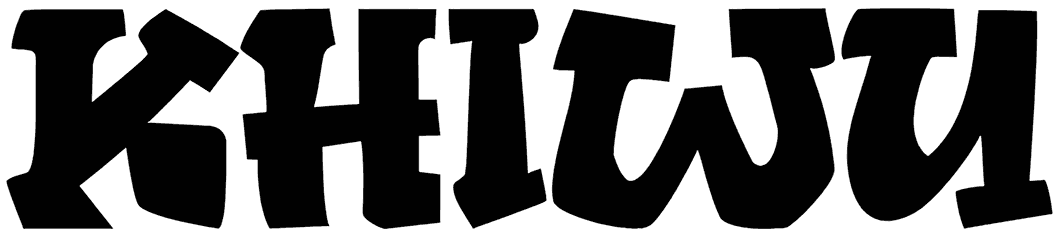
Bomber Wall Font
Bomber Wall is a chunky, whimsical script font. This graffiti font‘s absence of lowercase letters doesn’t detract from its usefulness in urban design, animations, and storybook covers. Using the Bomber Wall font with two sets of uppercase letters is a surefire way to get people talking about your latest design.